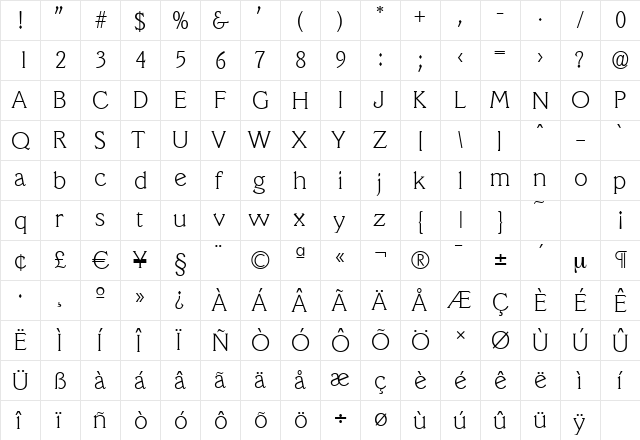
VeracruzSerial-Xlight Regular
Design Context for VeracruzSerial-Xlight Typeface
VeracruzSerial-Xlight is a composed and adaptable typeface that performs quietly and consistently across a wide range of design contexts. The delicate stroke weight brings airiness and refinement to layouts.